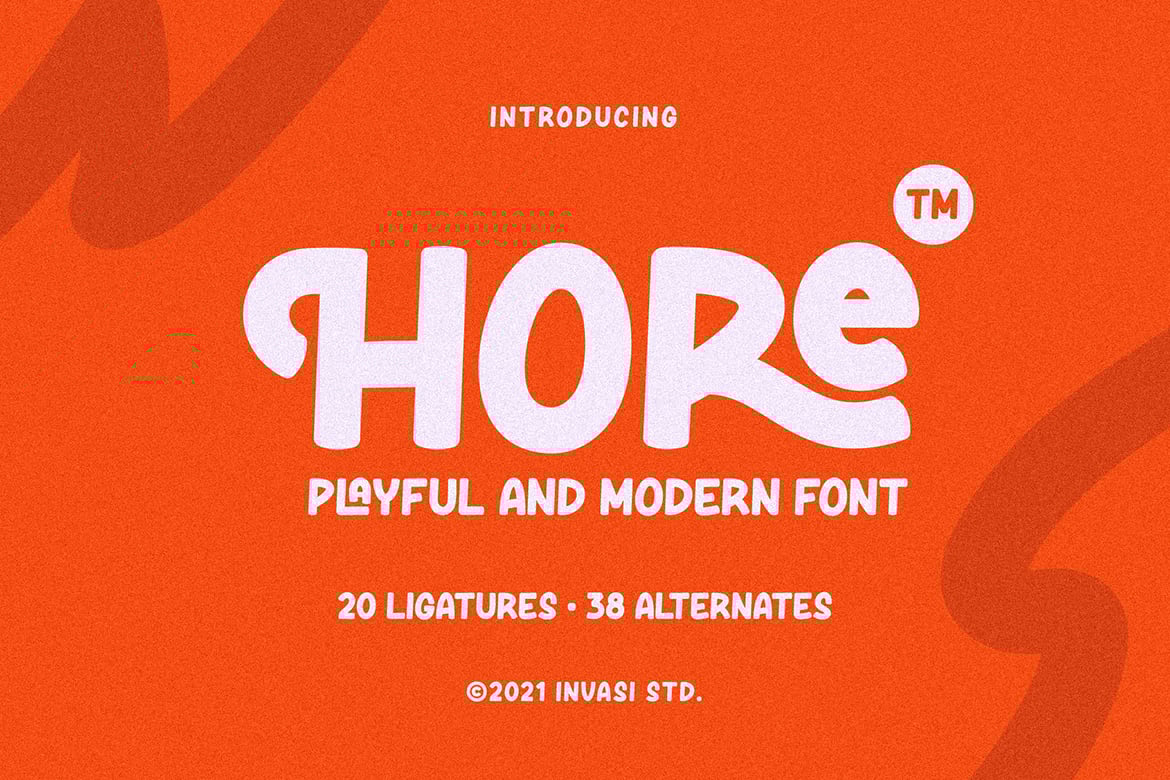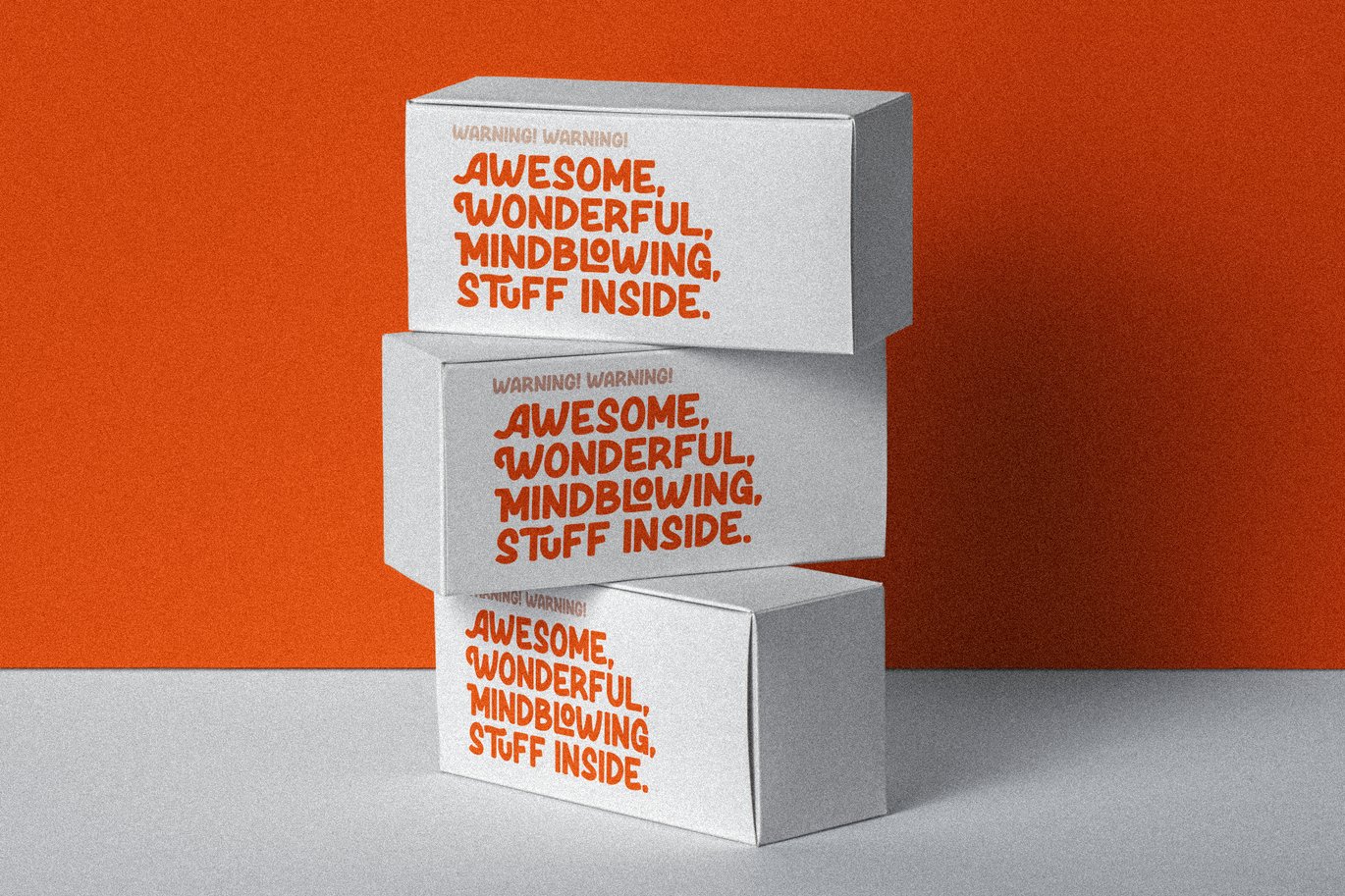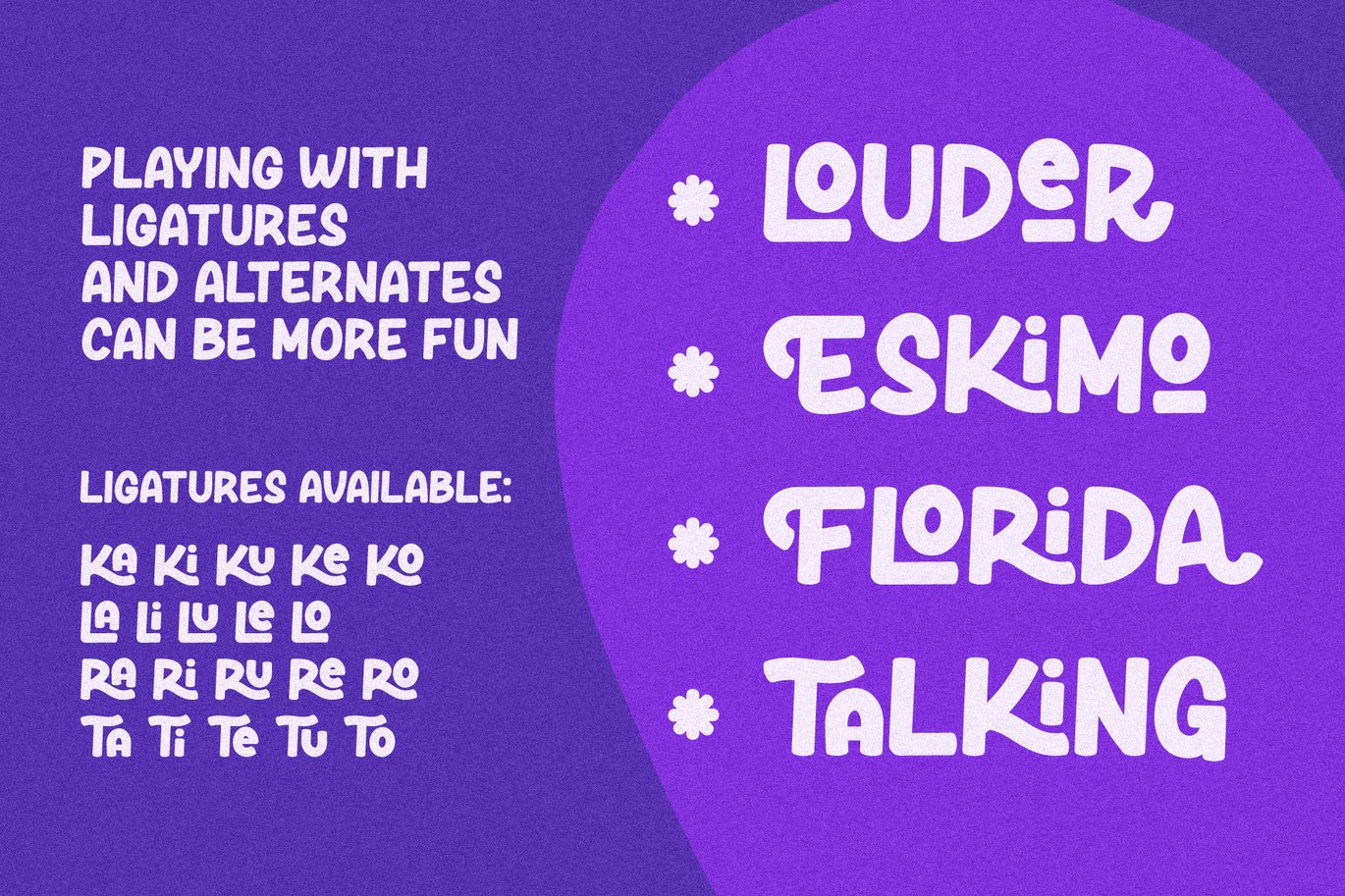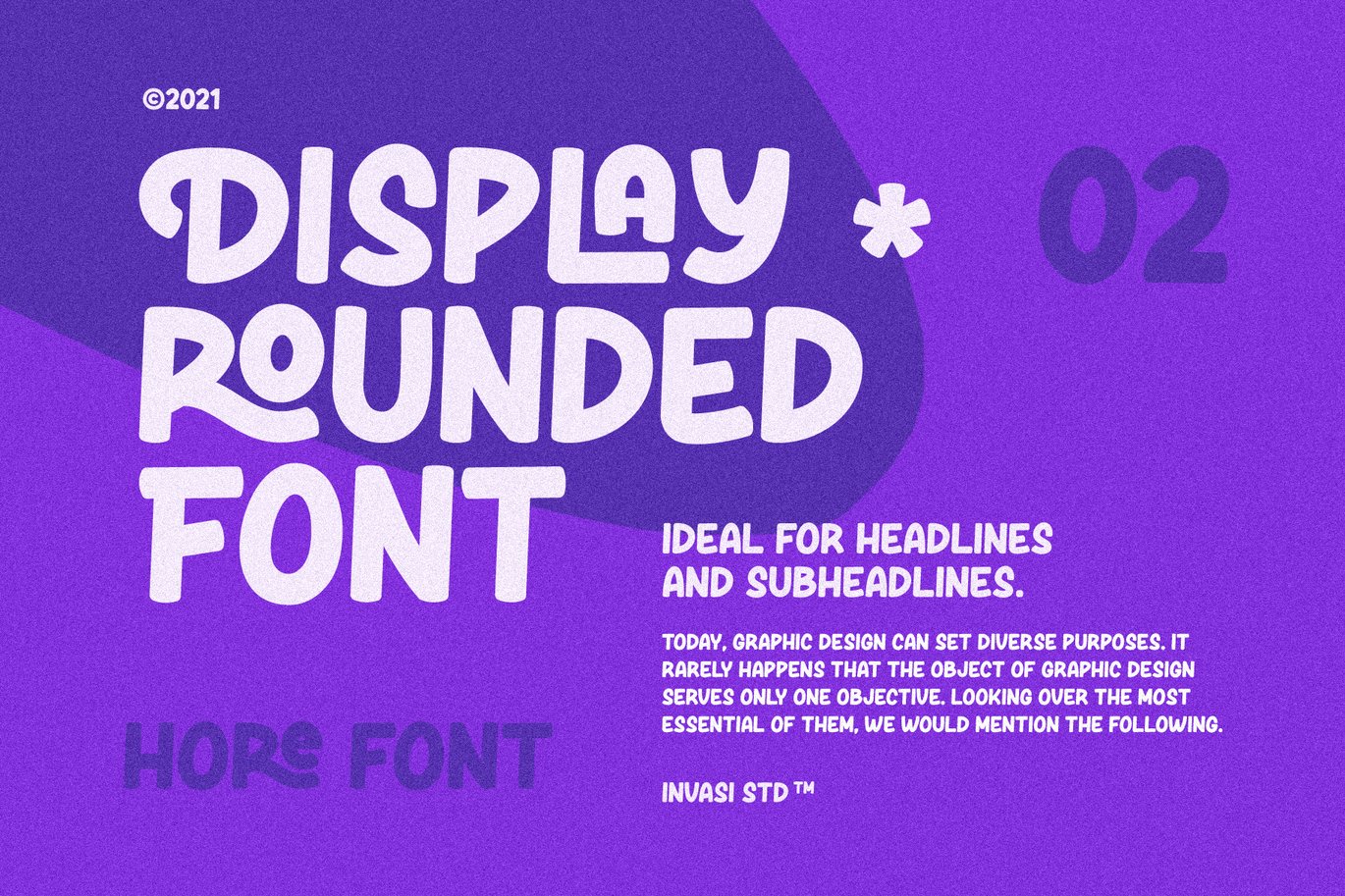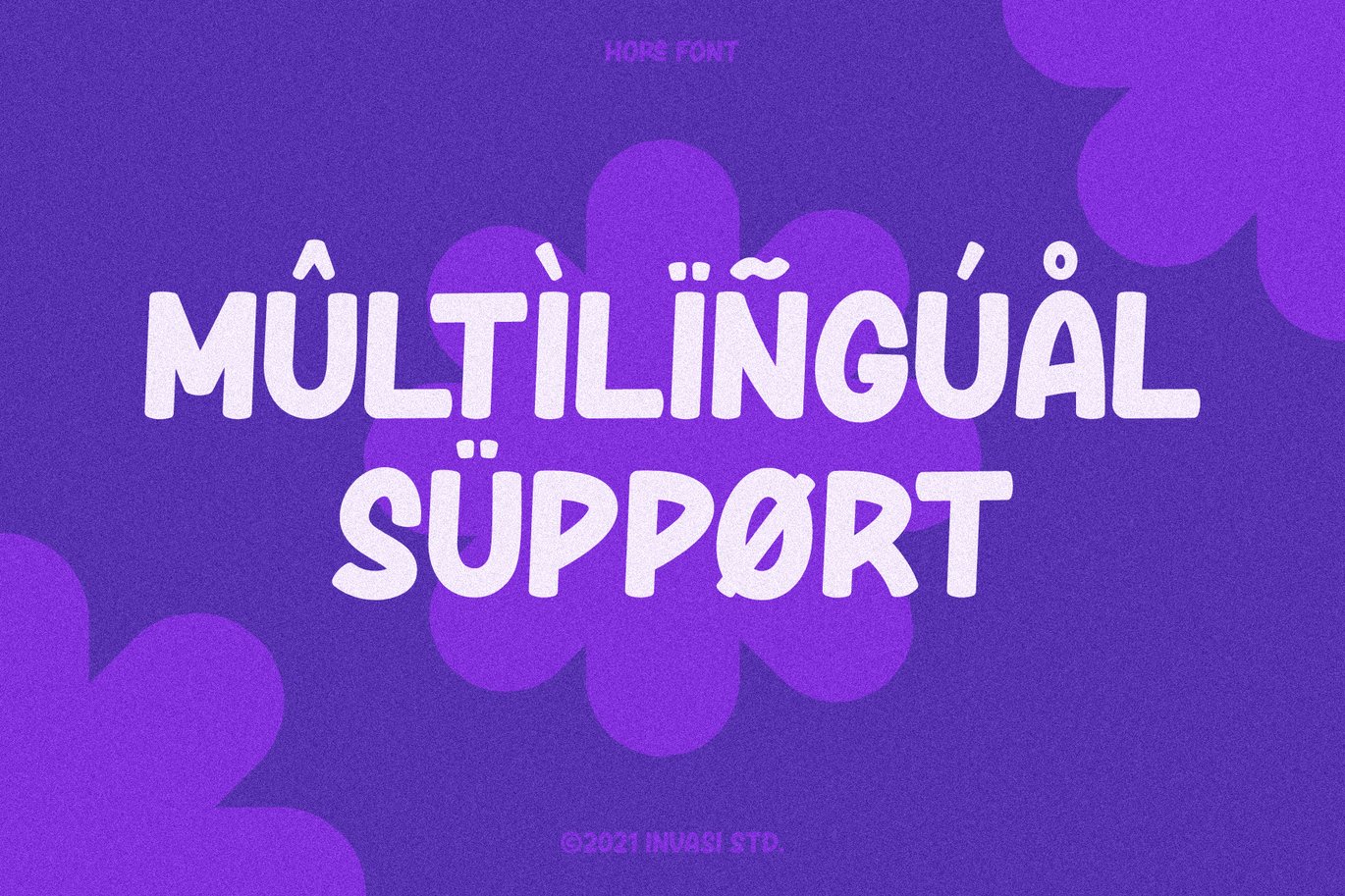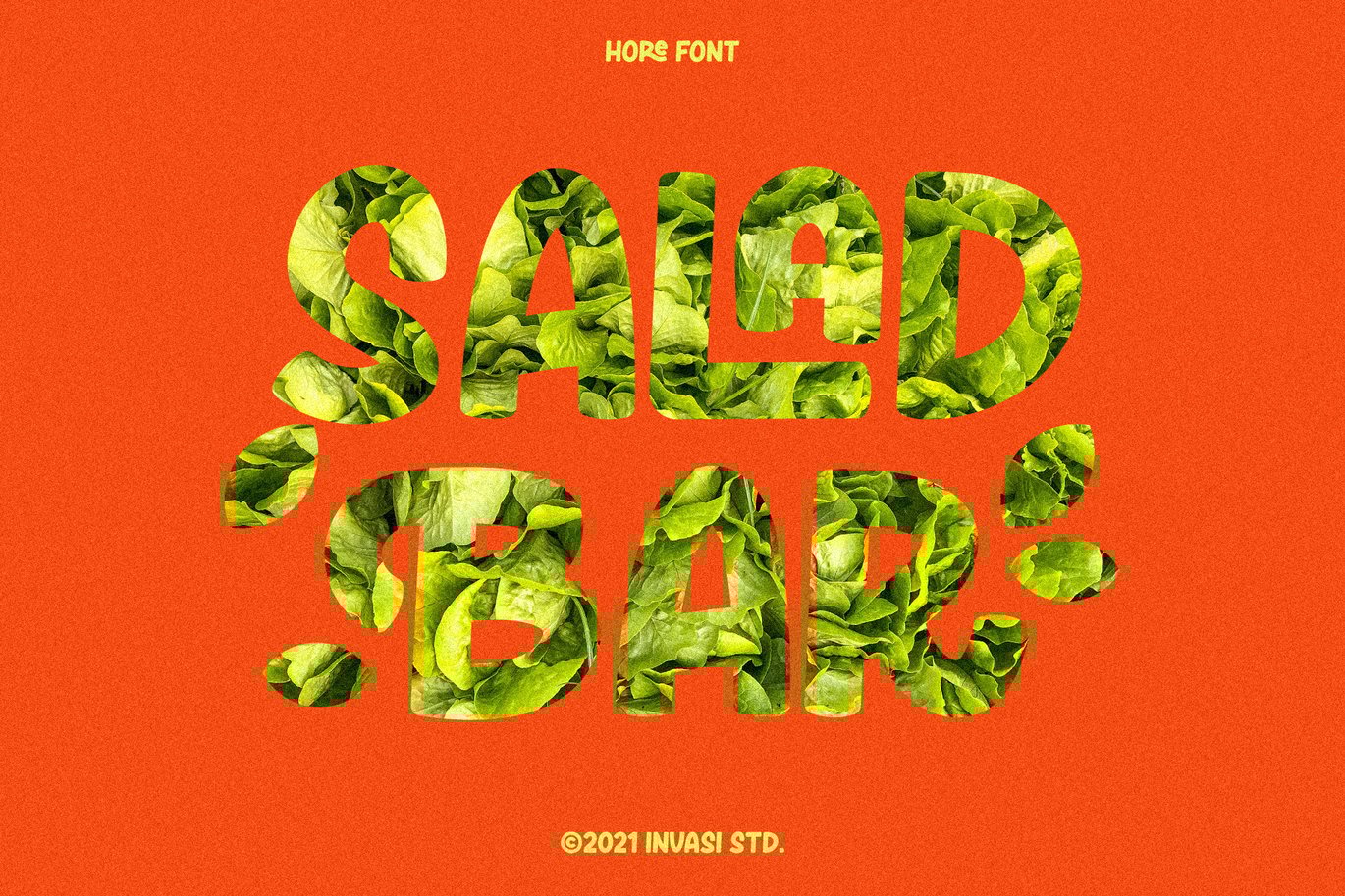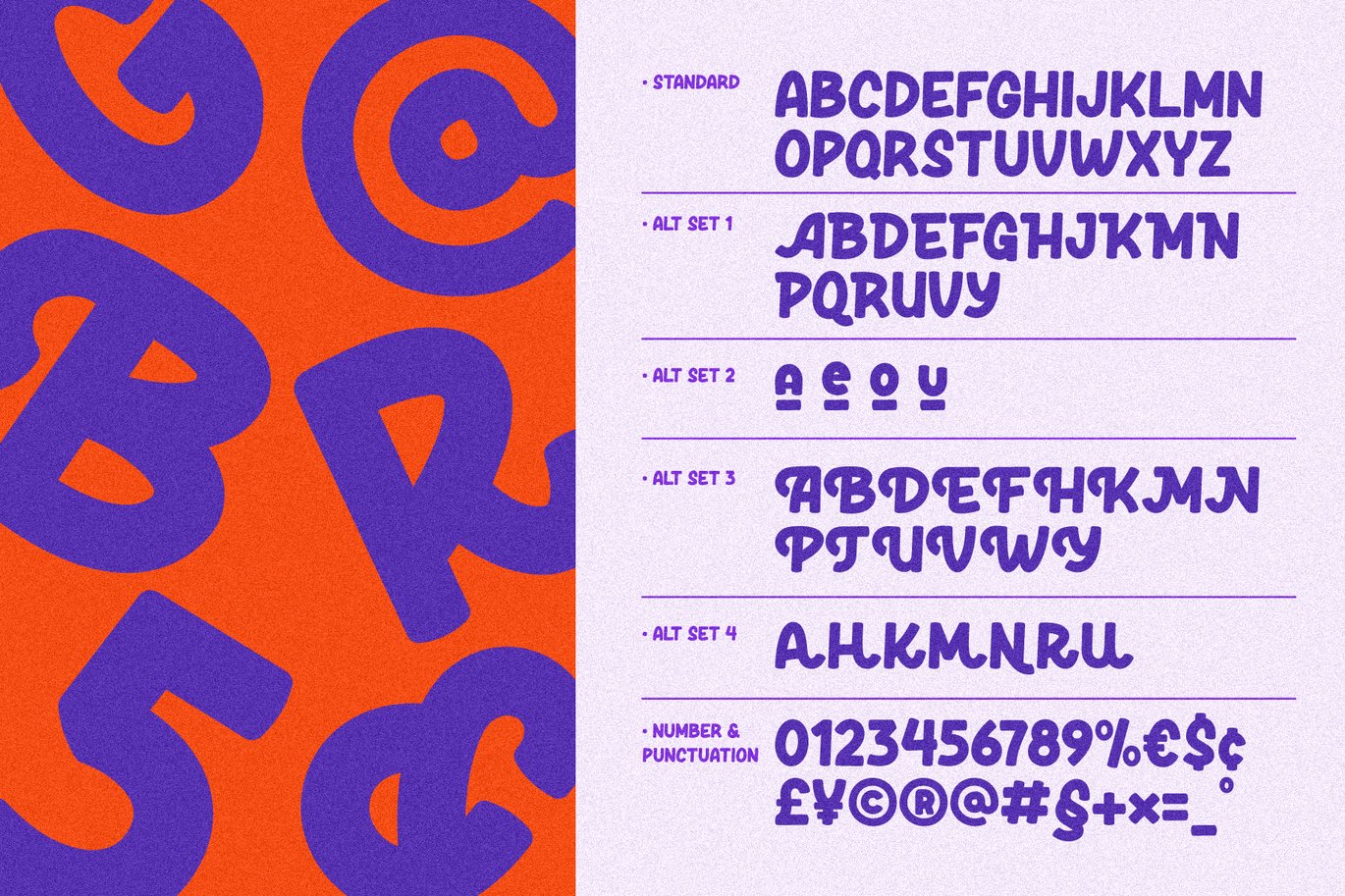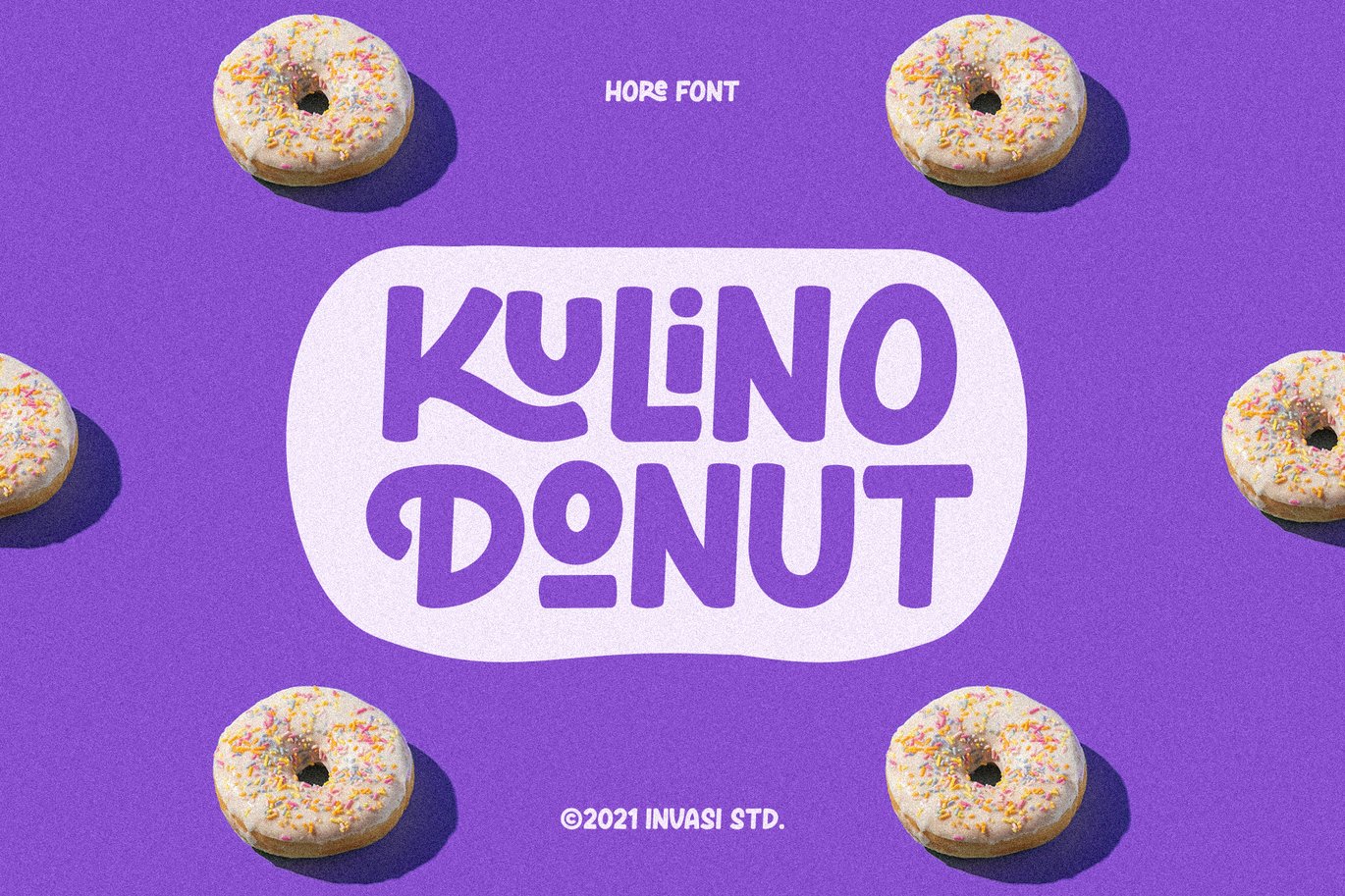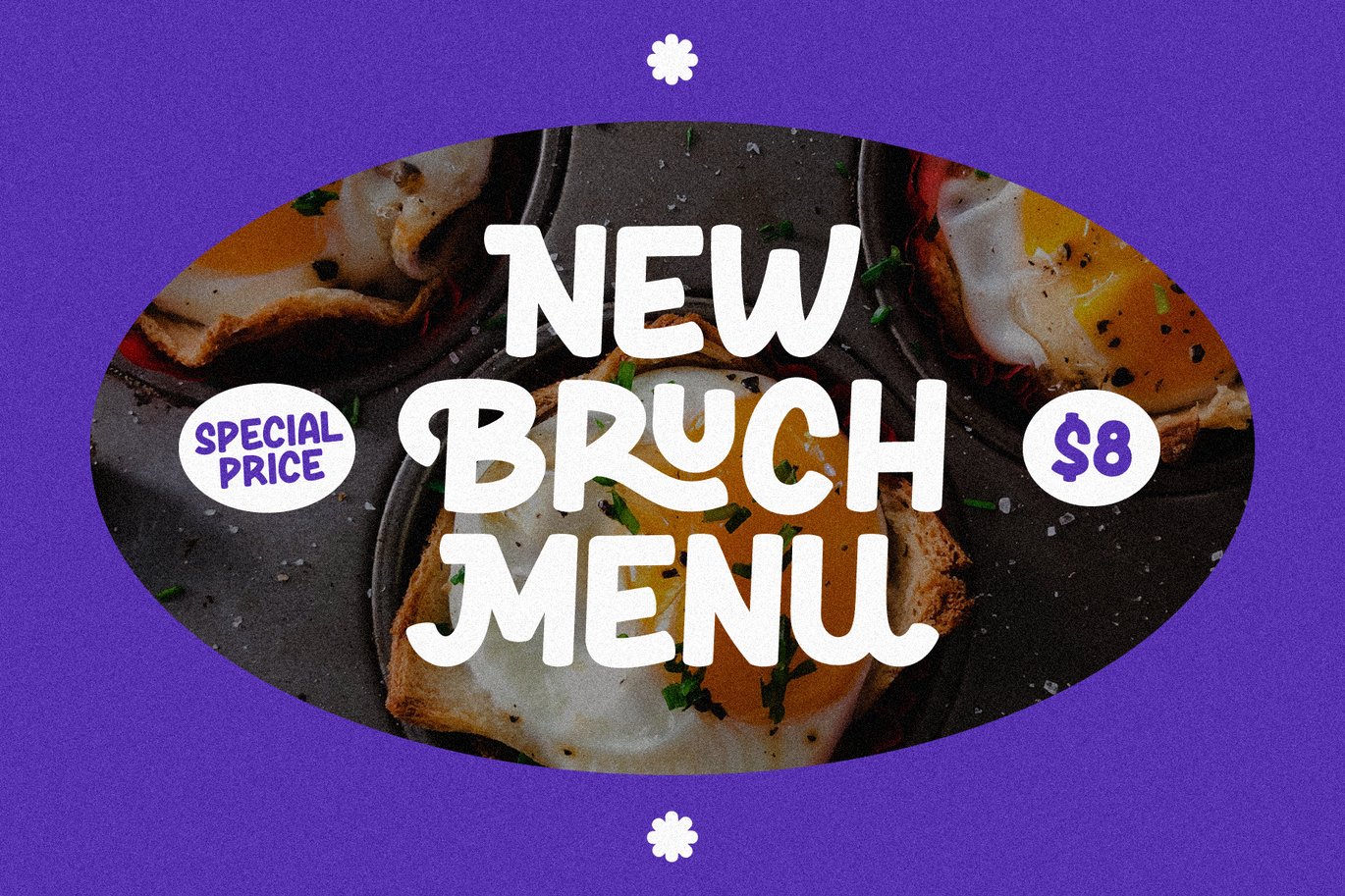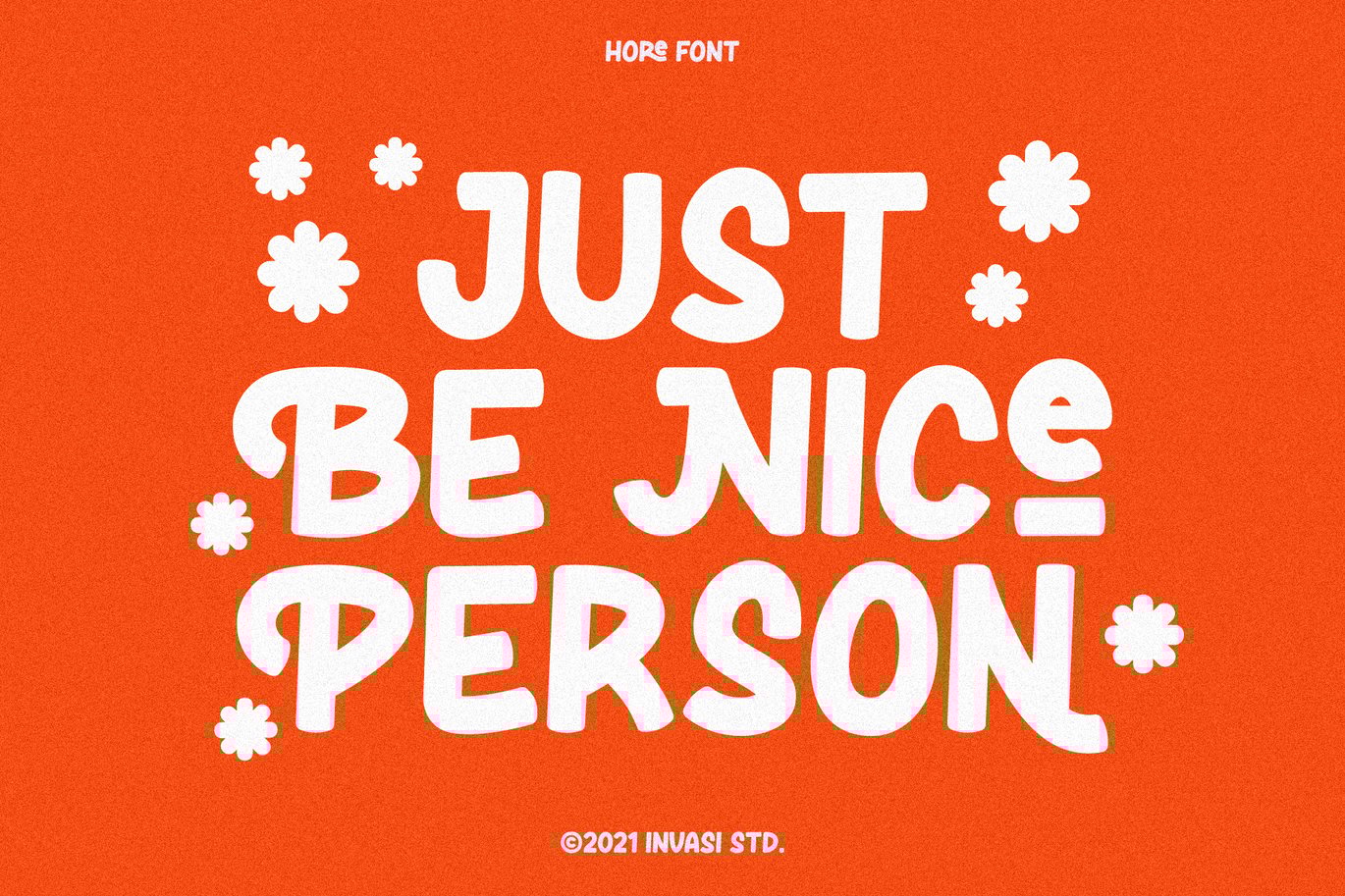
Hore – Playful Font
Introducing Hore, our new and fun font collection. It combines modern, playful, and formal together. It contains so many alternates and ligatures that you can use it for more fun on your projects.
Hore font is ideal for branding projects or packaging that need a quirky and playful feel.
- Multilanguage